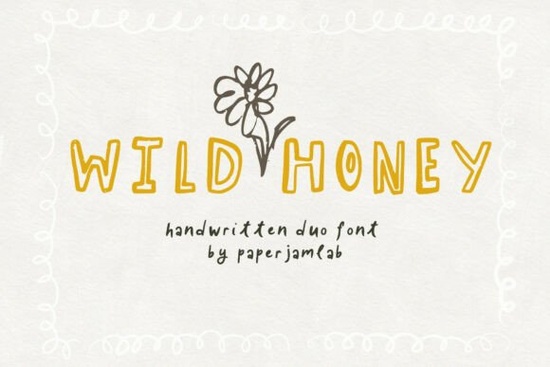
Finding the right typography is often the most challenging part of building a visual identity. When designing branding for slow-living brands or artisan crafters, the lettering you choose can make all the difference. The Wild Honey font is a beautifully untamed, deeply organic script designed to escape sterile, corporate geometry. If you want to inject genuine human warmth and tactile character into your projects, this typeface provides a cozy, soulful touch. It works perfectly for dreamers, storytellers, and creative hobbyists looking for a modern, quirky aesthetic. Instead of relying on standard, overused templates, creators can use this unique lettering to establish a distinct presence that genuinely resonates with their audience.
What makes this lettering stand out for print-on-demand sellers?
Many digital typefaces feel too rigid or perfectly calculated, which often clashes with the rustic charm of handmade goods. This specific script collection brings a wonderfully irregular flow that mimics real pen strokes. The uneven baselines and varying stroke weights give your merchandise a truly handcrafted feel, whether you are printing on canvas tote bags, ceramic mugs, or textured paper labels. Print-on-demand creators know that buyers are drawn to products that feel personal rather than mass-produced. Digital perfection often lacks the soul needed for artisanal items, which is why embracing imperfections in your typography is so valuable. If your brand identity leans toward nostalgic aesthetics, you might also appreciate exploring vintage-inspired hand-drawn typefaces to complement this look.
How should small businesses pair this font with other styles?
Because this typeface has so much personality and quirky flair, it pairs best with quiet, understated companions. When setting up a boutique logo or a product packaging layout, let the organic curves of the main title speak for themselves. For your body text or secondary details, look into authentic handwriting variations or perhaps some clean, minimal script alternatives to avoid overwhelming the reader. You want a balanced composition where the deeply organic display text catches the eye, and the supporting text remains highly legible. This approach creates a harmonious visual hierarchy that guides your customers through your brand story naturally, without causing visual fatigue.
Which creative projects benefit most from this cozy aesthetic?
This typeface thrives in environments that celebrate slow living, nature, and personal connection. It is highly versatile for designers who need a touch of modern magic across different mediums. Crafting enthusiasts and small business owners frequently use it to add a bespoke quality to their work. Some of the best applications include:
- Artisanal Food Packaging: Perfect for honey jars, organic tea labels, or small-batch bakery boxes where a homemade feel is essential.
- Stationery and Invitations: Adds a warm, intimate tone to wedding suites, save-the-dates, and handmade greeting cards.
- Social Media Branding: Creates engaging, thumb-stopping headers for lifestyle bloggers and wellness influencers.
- Apparel Graphics: Looks fantastic screen-printed on comfortable, everyday wear like organic cotton sweatshirts and linen shirts.
If you find that this specific style is a bit too textured for a particular client request, you can always pivot to relaxed and casual lettering styles that offer a slightly smoother, yet still approachable, vibe.